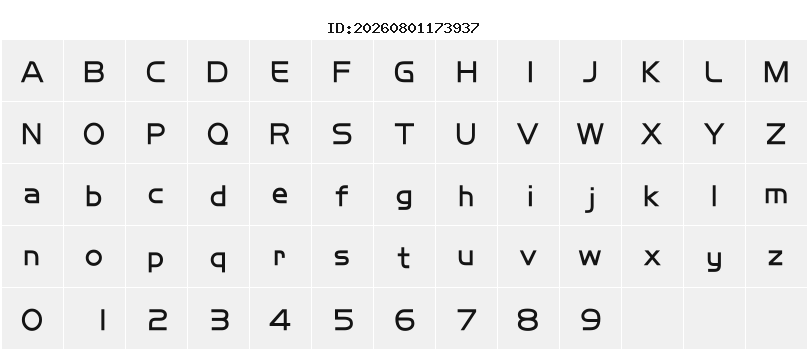
百度综艺简体 Preview
• Font Name: 百度综艺简体
• Full Font Name: 百度综艺简体
About 百度综艺简体.ttf
百度综艺简体.ttf is a modern, elegant sans-serif font designed for ultimate readability and visual harmony. Perfect for branding, headlines, web design, and print materials.